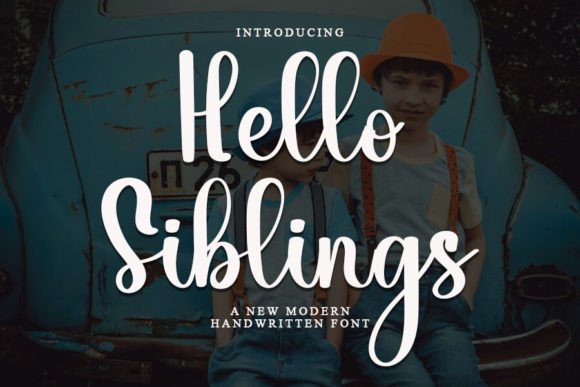
Hello Siblings Font: Elevate Your Designs with Elegance
Hello Siblings font is a stunning typeface that has captured the hearts of designers and font enthusiasts alike. Described as a neat and beautiful font with an elegant touch, Hello Siblings is perfect for those looking to add a touch of sophistication to their favorite projects. In this article, we’ll dive into the world of Hello Siblings font, exploring its unique features, and what makes it an excellent choice for creating spectacular designs.
Distinct and Timeless Style
Hello Siblings font boasts an incredibly distinct and timeless style that sets it apart from other fonts. Its elegant touch is evident in its sleek lines, curves, and refined edges. The font’s unique characteristics make it an excellent choice for designers seeking to create visually appealing designs that stand out from the crowd.
One of the most notable features of Hello Siblings font is its versatility. It can be used for a wide range of projects, from branding and advertising to packaging and digital media. Whether you’re creating a logo, brochure, or social media graphic, Hello Siblings font is sure to make your design shine.
Why Choose Hello Siblings Font?
There are many reasons why Hello Siblings font has become a favorite among designers. Here are just a few benefits of using this stunning font:
- Elegance**: Hello Siblings font exudes elegance and sophistication, making it perfect for high-end brands and luxury projects.
- Versatility**: The font’s versatility allows it to be used for a wide range of projects, from print to digital media.
- Timelessness**: Hello Siblings font has a timeless quality that ensures your designs will remain stylish and relevant for years to come.
- Legibility**: The font’s clean lines and refined edges make it highly legible, even at small sizes.
Design Tips for Using Hello Siblings Font
To get the most out of Hello Siblings font, here are some design tips to keep in mind:
- Pair with contrasting fonts**: Hello Siblings font pairs well with contrasting fonts, such as bold sans-serifs or elegant scripts.
- Experiment with colors**: The font’s elegance shines through with a range of colors, from neutral tones to bold brights.
- Play with sizes**: Hello Siblings font looks stunning in a range of sizes, from large headings to small body text.
- Add texture and patterns**: Adding texture and patterns to your design can enhance the font’s elegance and visual interest.
Pairing Hello Siblings Font with Other Fonts
Hello Siblings font pairs well with a range of fonts, but here are some popular pairing options:
- Open Sans**: A clean and modern sans-serif font that pairs well with Hello Siblings’ elegance.
- Lato**: A sleek and sophisticated sans-serif font that complements Hello Siblings’ refined edges.
- Merriweather**: A classic serif font that pairs well with Hello Siblings’ elegant touch.
Hello Siblings font is a stunning typeface that offers a unique blend of elegance, versatility, and timelessness. Its distinct and timeless style makes it an excellent choice for designers seeking to create visually appealing designs that stand out from the crowd. With its high legibility, versatility, and range of design possibilities, Hello Siblings font is sure to become a favorite in your font collection.